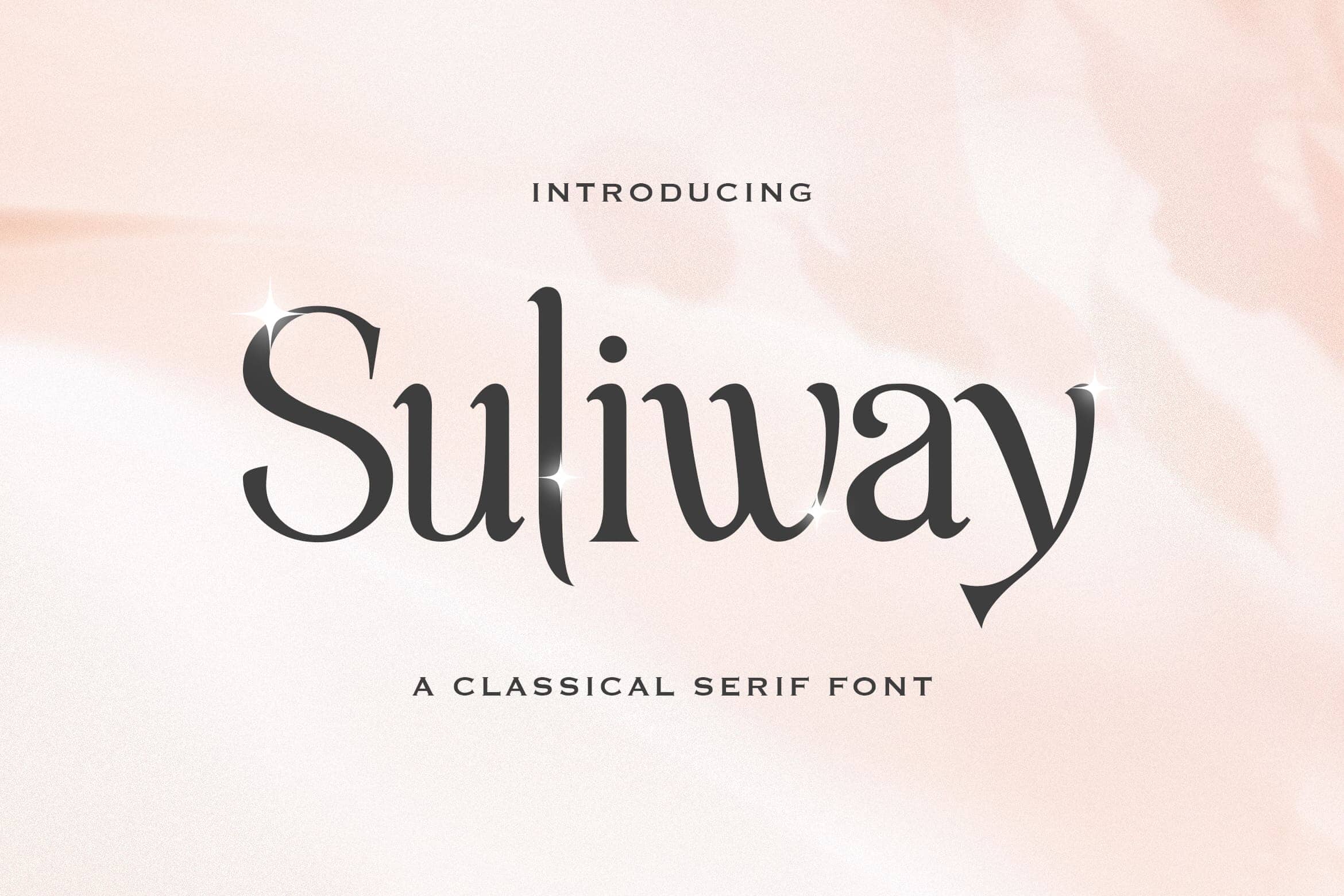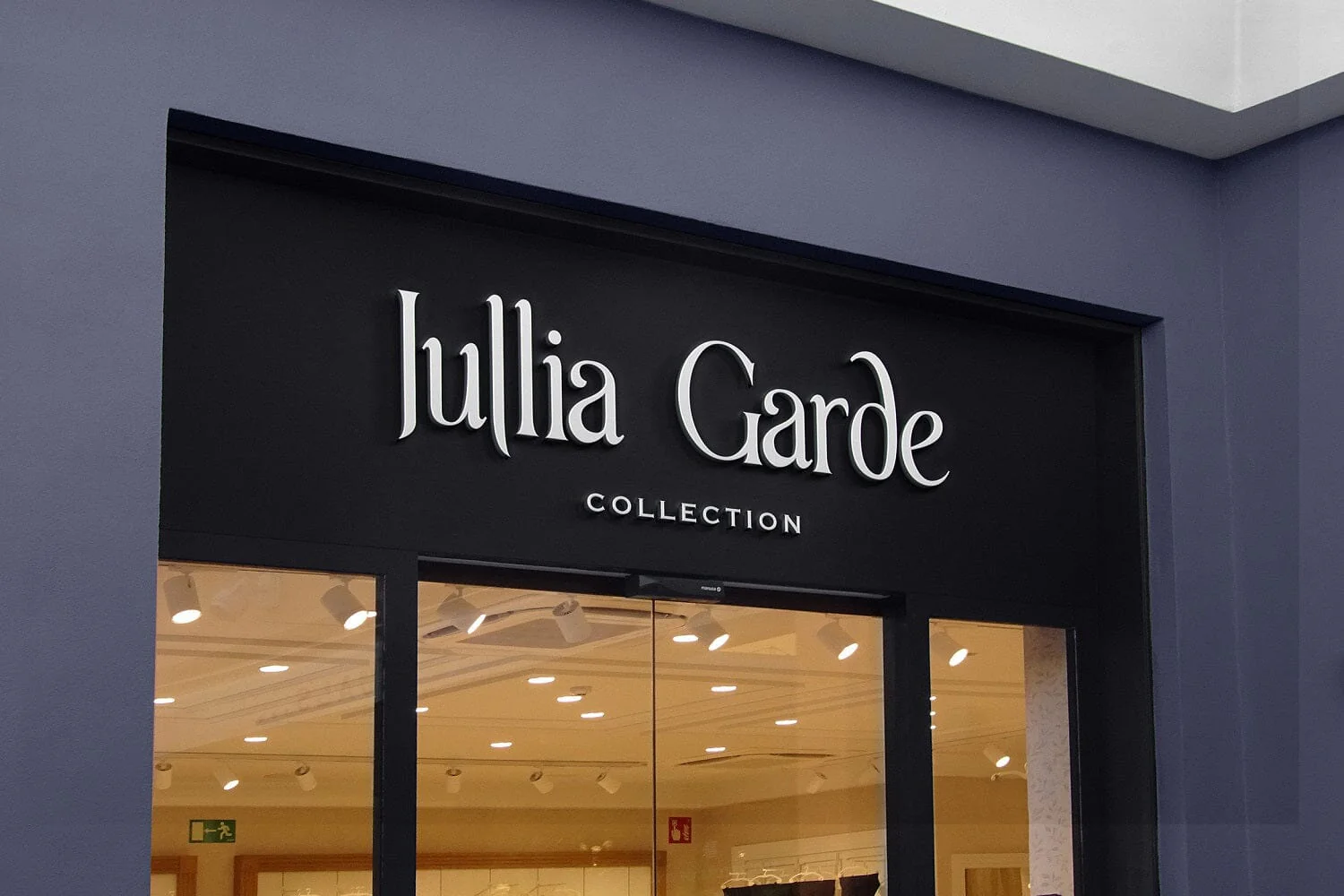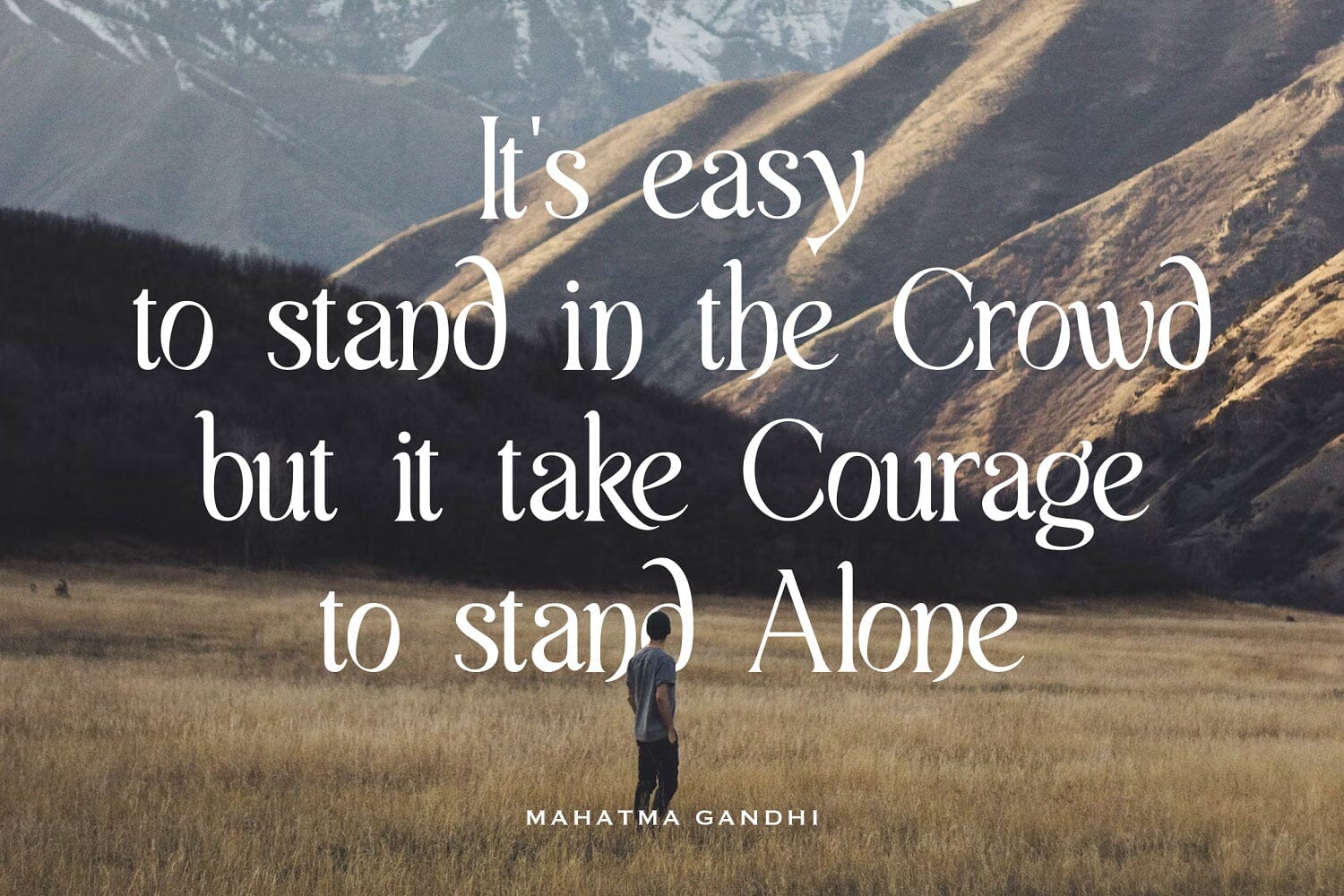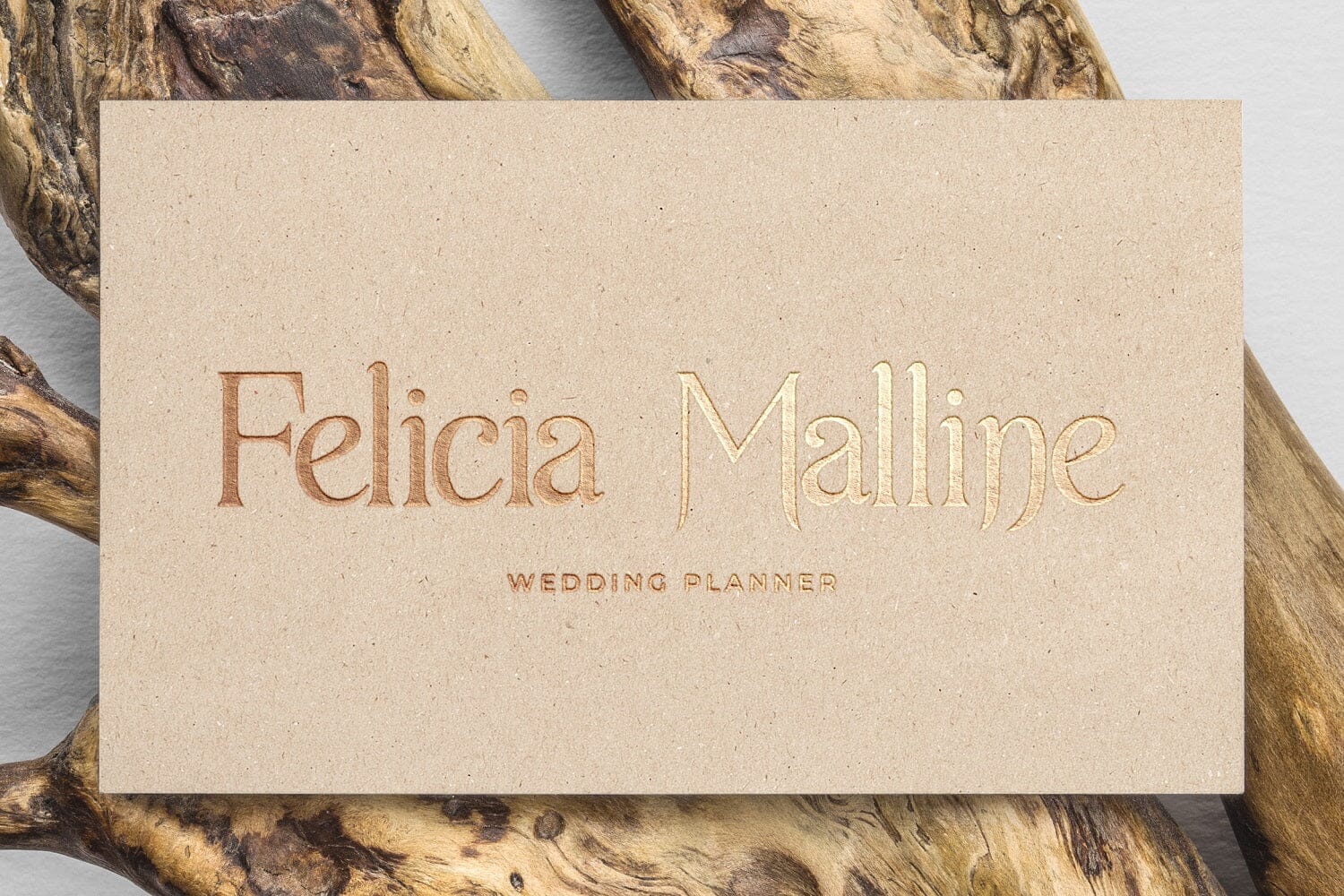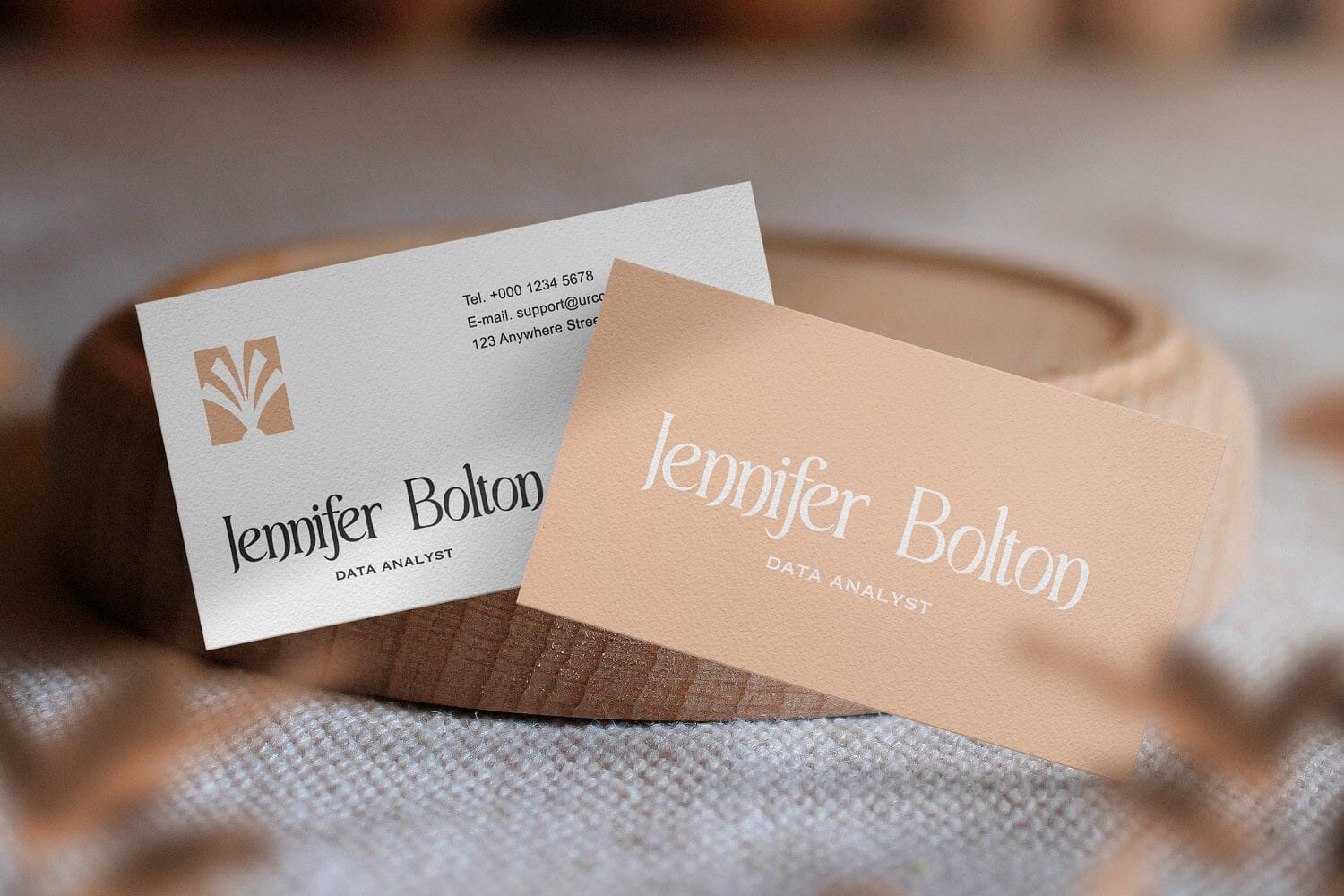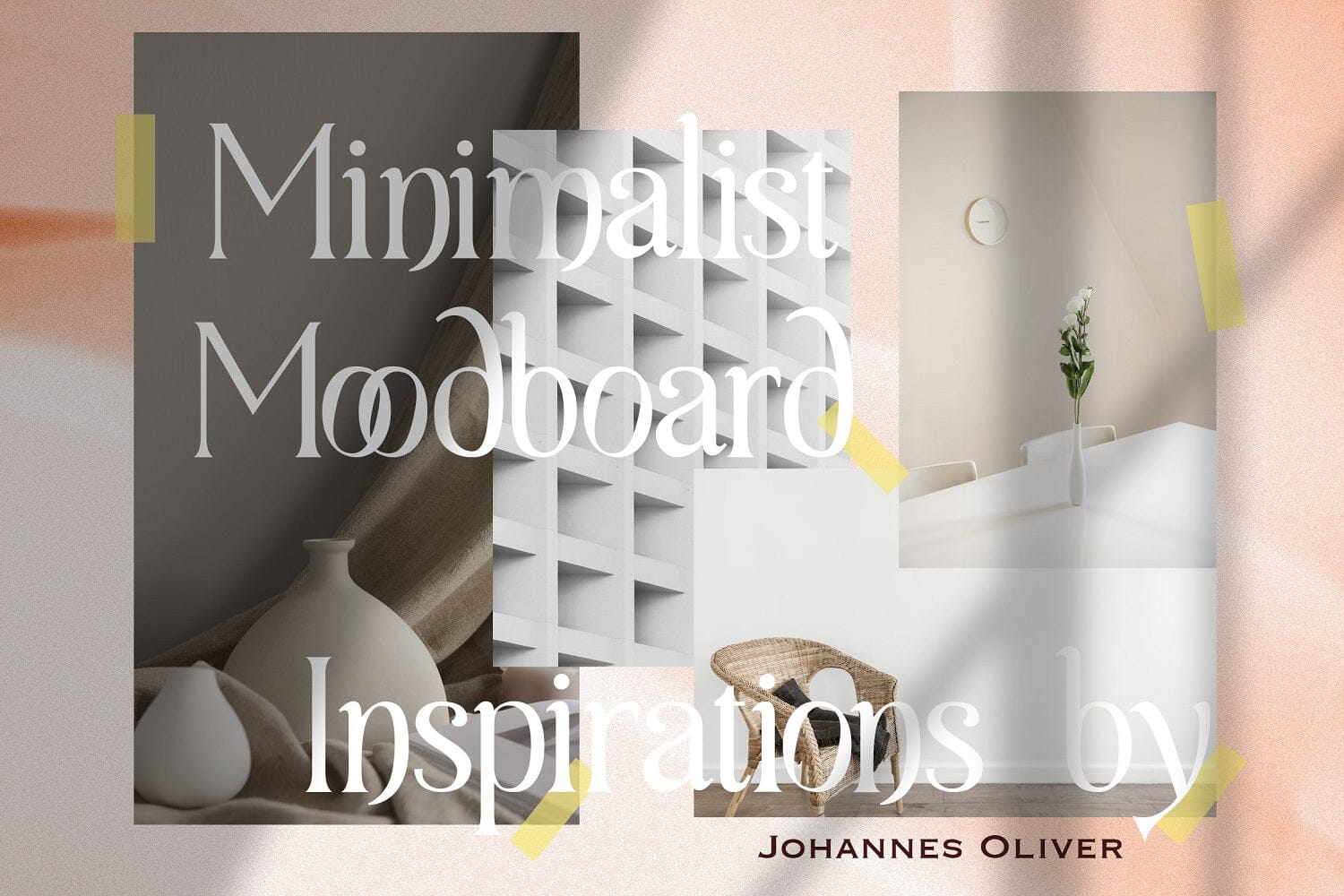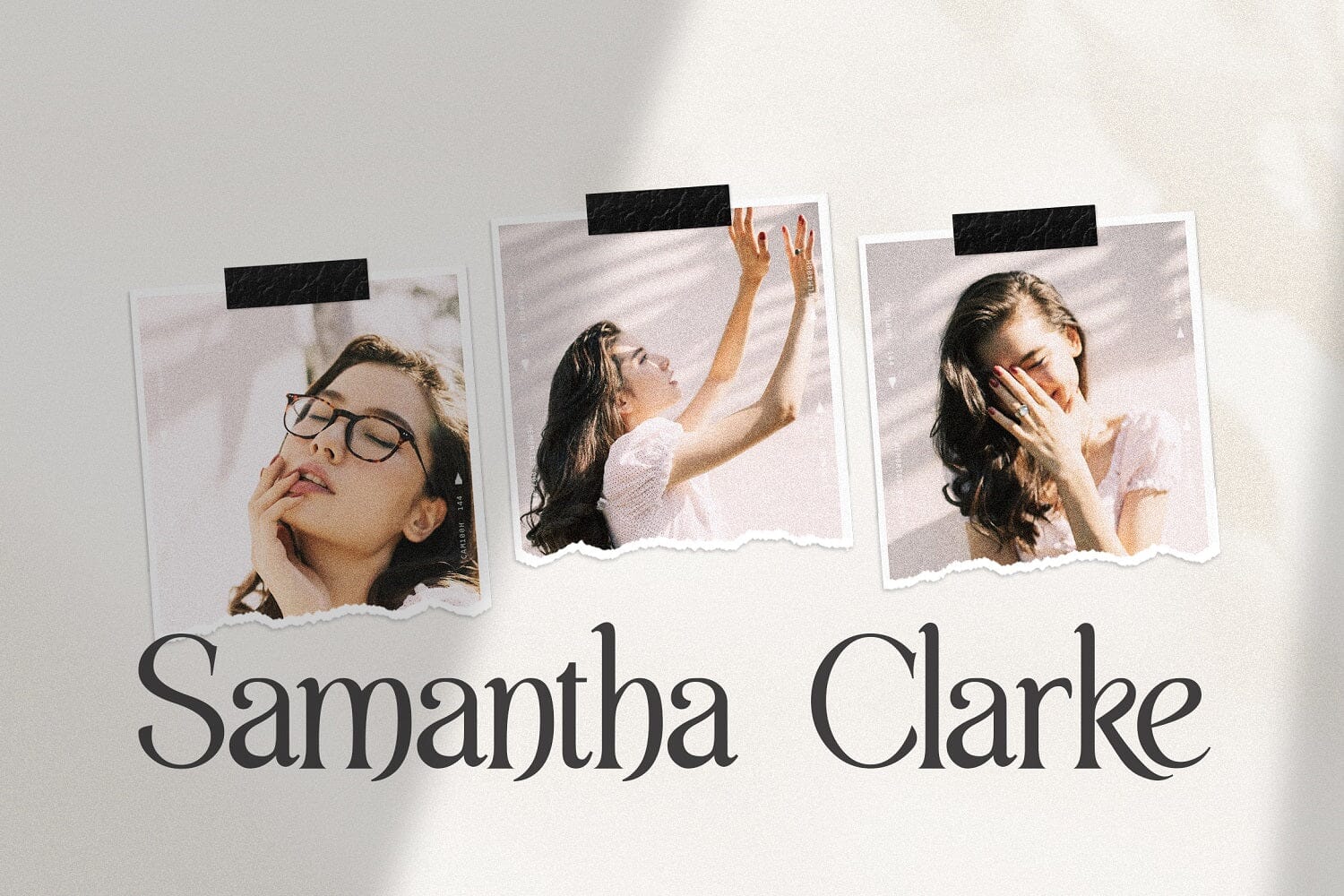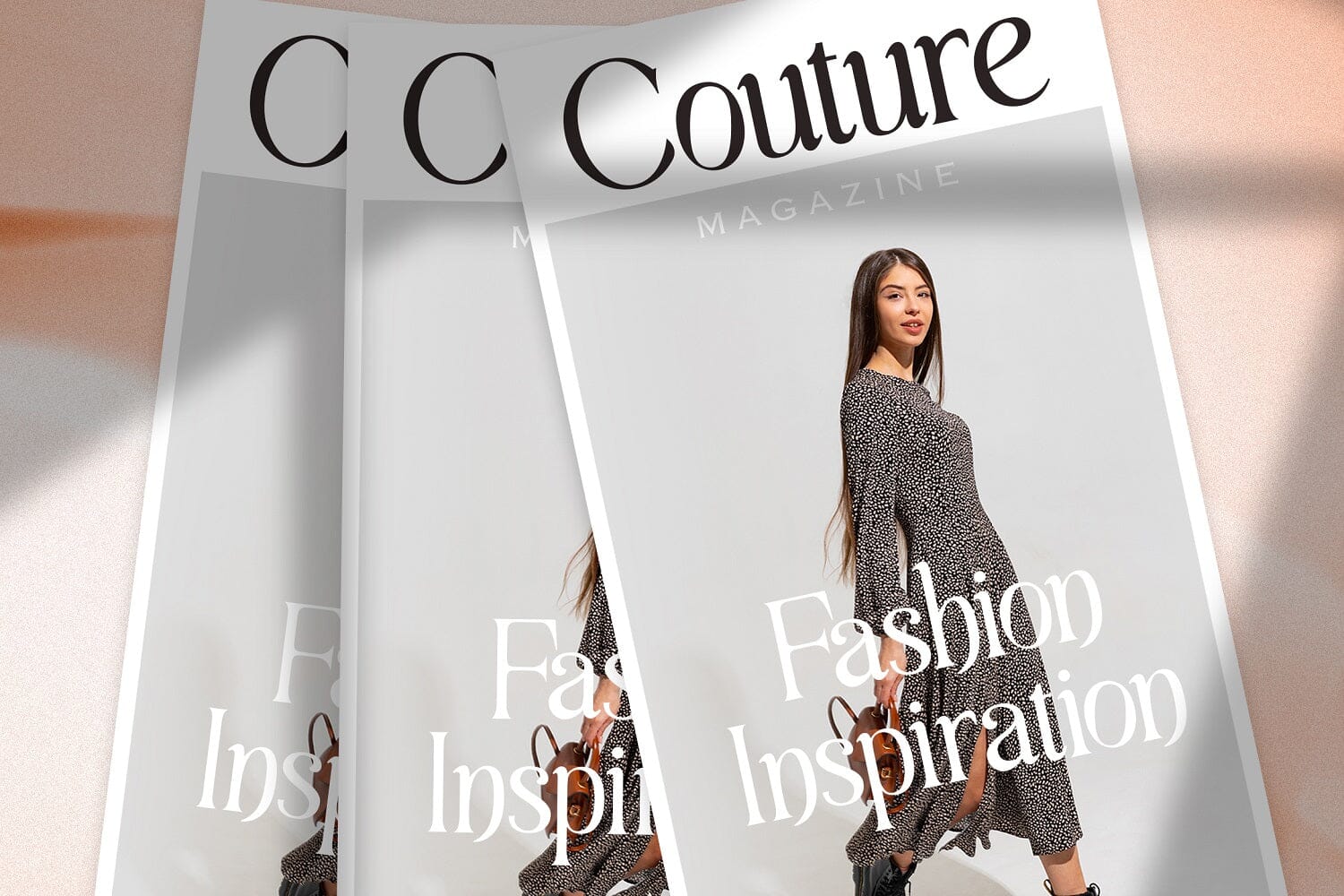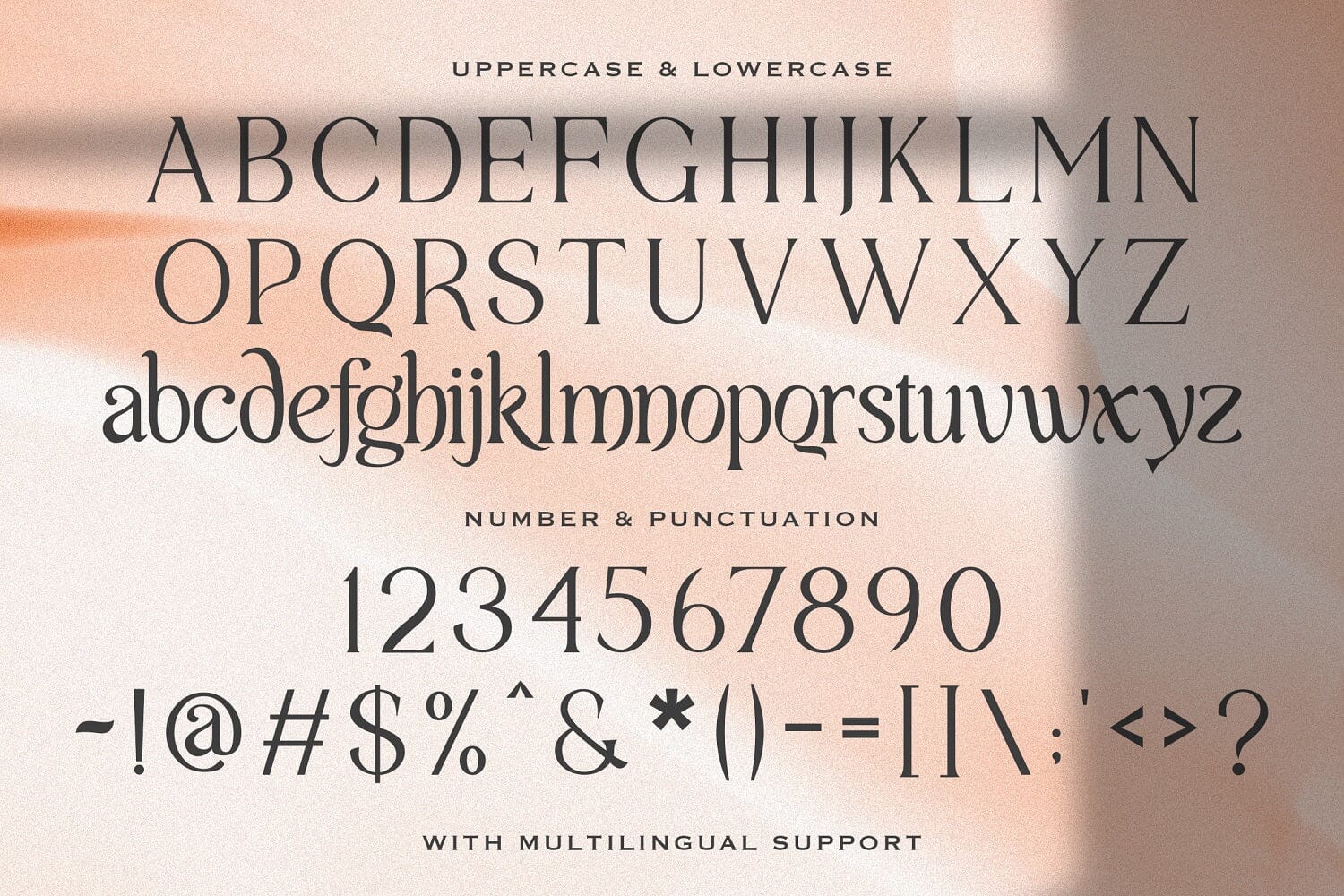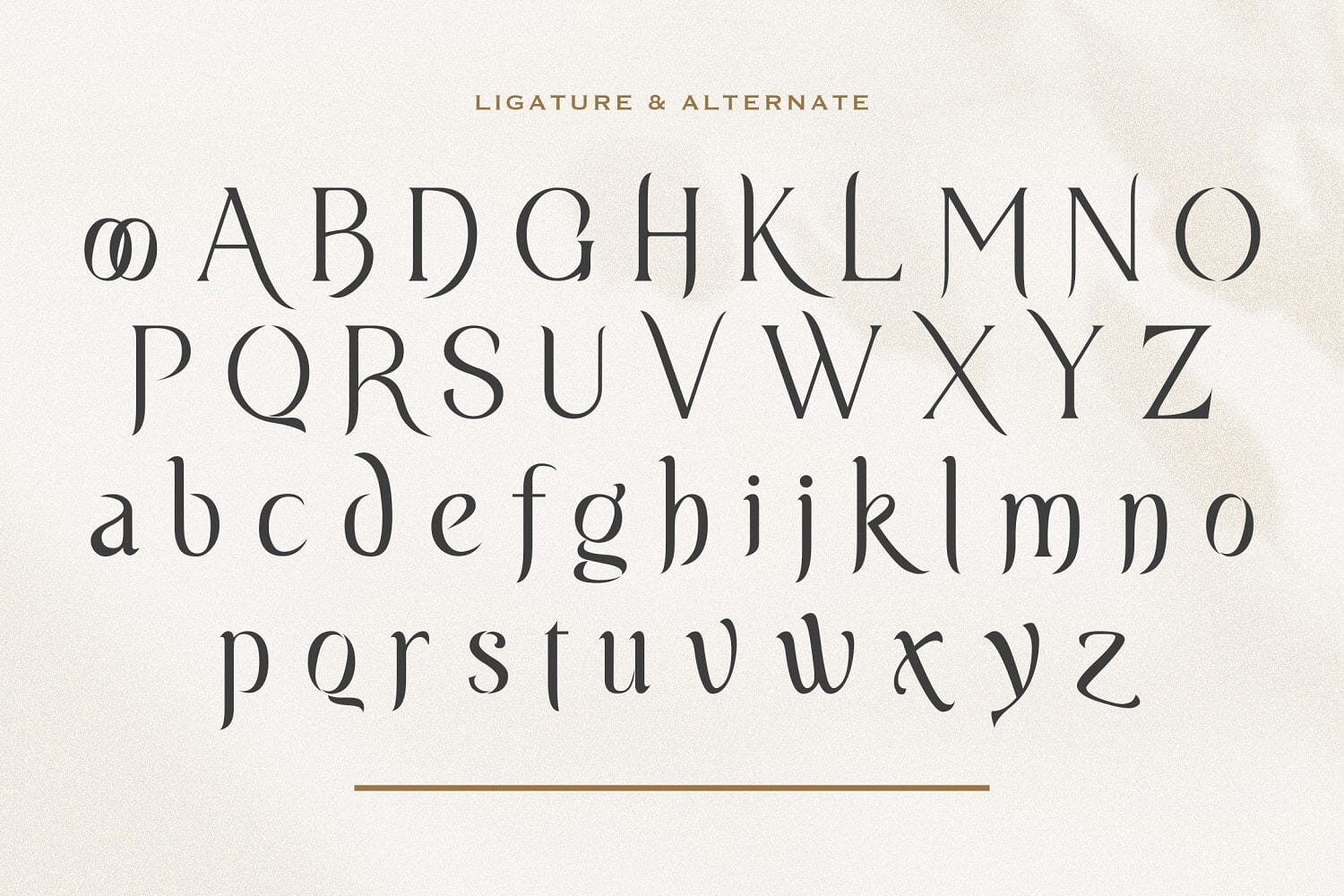
Suliway - Display Serif Font
Introducing Suliway - Display Serif Font
Suliway is an authentic and display serif font. It can easily be matched to an incredibly large set of projects, so add it to your creative ideas and notice how it makes them stand out!
Introducing Suliway - Display Serif Font
Suliway is an authentic and display serif font. It can easily be matched to an incredibly large set of projects, so add it to your creative ideas and notice how it makes them stand out!